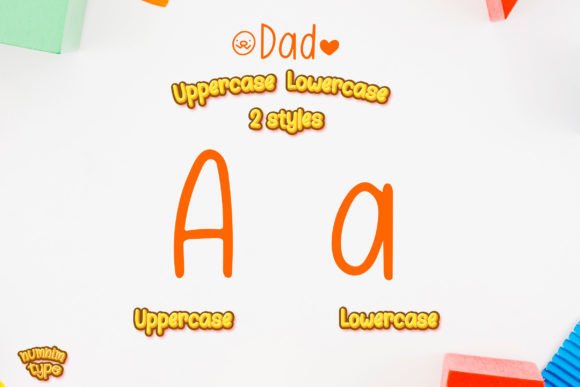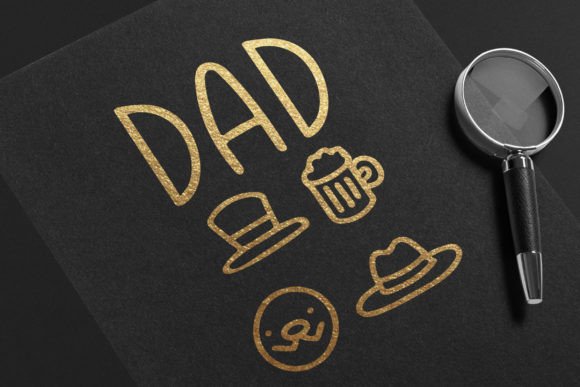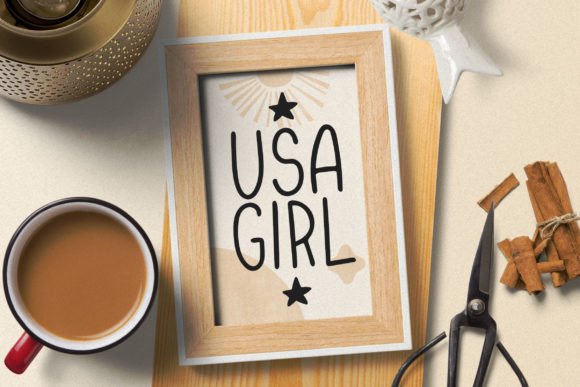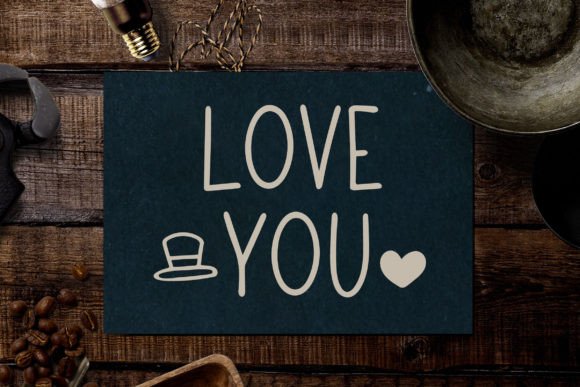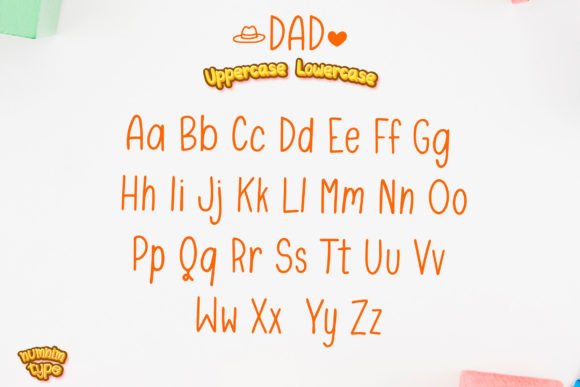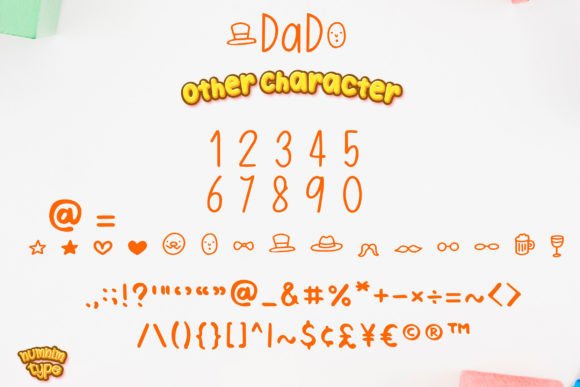
The Ultimate Guide to Dad Font: Adding a Personal Touch to Your Designs
I’ll never forget the time I was working on a Father’s Day project for a client, and I was struggling to find the perfect font to capture the playful, loving spirit of the occasion. That’s when I stumbled upon Dad Font, a handwritten font that instantly brought a smile to my face. Its fun, vibrant characters seemed to scream “perfect for this project!” and I knew I had found what I was looking for.
An Honest Review of Dad Font
So, what makes Dad Font so special? Let’s dive into the good stuff and a few quirks I’ve discovered.
What I Love About Dad Font
- ✨ Vibrant and Joyful Feel: Dad Font has a unique, energetic vibe that’s perfect for creating eye-catching designs.
- 🎉 Fun and Playful Characters: The font’s playful characters are perfect for a wide range of projects, from stickers and mugs to t-shirts and ornaments.
While Dad Font is an amazing addition to any designer’s toolkit, there are a few things to keep in mind:
- ⚠️ Limited Use in Formal Designs: Due to its playful nature, Dad Font might not be the best choice for formal or professional designs.
The Story Behind Dad Font
Dad Font was created with the intention of capturing the joy and playfulness of fatherhood. Its designer aimed to create a font that would bring a smile to people’s faces and make their designs stand out. While the exact story behind Dad Font might be fictional, its impact on designers and crafters is very real.
| Font Name | Dad Font |
| Author | numnim |
| What is Dad Font best used for? | Dad Font is perfect for a wide range of projects, including stickers, mugs, t-shirts, ornaments, Father’s Day event cards, and more! |
| Is Dad Font suitable for formal designs? | Due to its playful nature, Dad Font might not be the best choice for formal or professional designs. However, it can be used in more creative or casual contexts. |